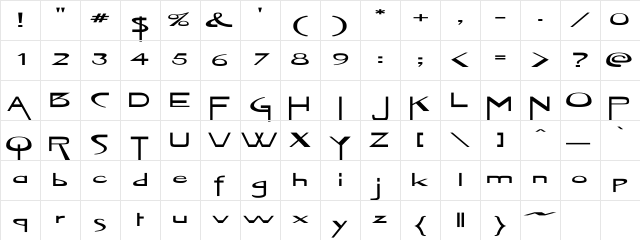
VireoFontExt Regular
Design Context for VireoFontExt
VireoFontExt is a composed and adaptable typeface that performs quietly and consistently across a wide range of design contexts.
Pro Tip: Use VireoFontExt in both headline and body roles to test its range before committing to a single application.